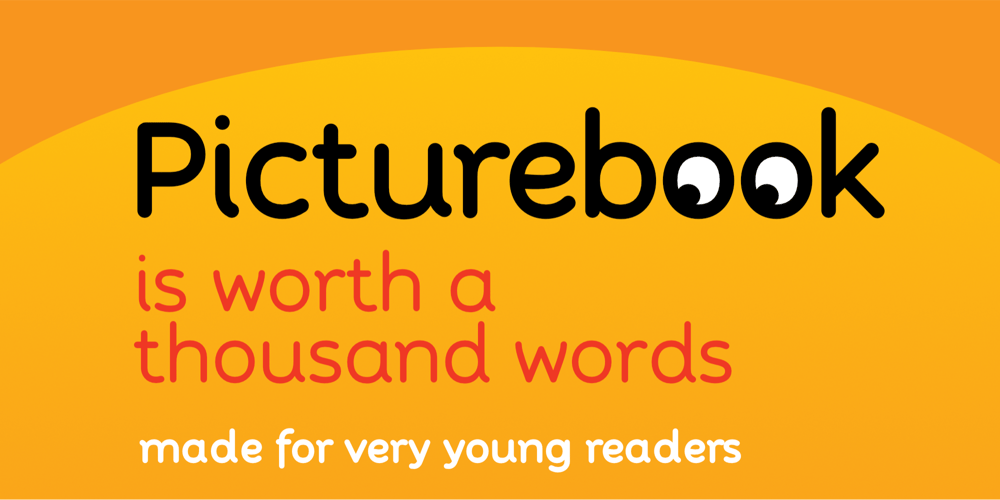
Picturebook Font Family was designed by Andy Peat and published by Andy Peat. Picturebook contains 3 styles and family package options. About this font familyPicturebook was made for very young readers and is ideal for creating simple words and sentences in picture books. Produced in three weights with very clear, distinct character shapes to aid early reading and learning.Features3 weights; Regular, Medium and BoldMulti language supportTo be able to access alternative fonts, make sure the software you use can support opentype features such as Microsoft Word, Paint, Adobe, Corel draw, Cricut and other applications.Designed and published by Andy Peat. www.andypeat.comReleased December 2023